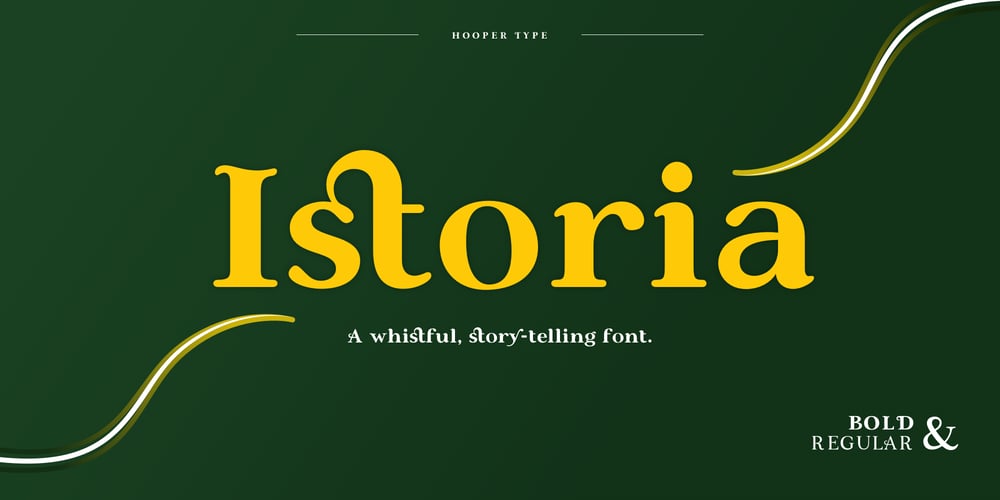
Istoria Font Family was designed by Christos Hooper and published by Hooper Type. Istoria contains 2 styles and family package options. New foundry on the block, Hooper Type, kicks off it’s catalogue with a versatile, story-telling serif font. With a love of the magical and a yearning for adventure, Istoria pushes away from the static, drawing in whisps and whirls that entice and excite, without distracting. Unassuming in it’s long form, with delicate strokes that draw the eye, it commands attention when used in short punchy titles, or set in caps.Istoria (meaing both history and story in Greek) delights in having unusual curves, curvy straights and twisty feet which emulate those adventures and myths from days gone by. Type shouldn’t interfere with the content, but it absolutely can enhance it. Hope you enjoy it!